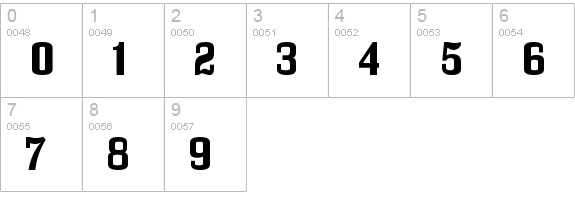
Vigo Font Details
Vigo font is a modern and sleek typeface that combines elegance with a touch of sophistication. Its clean lines and smooth curves make it perfect for a wide range of design projects, from branding to editorial layouts. Vigo font exudes a sense of style and professionalism that is sure to elevate any design it is used in. The best part about Vigo font is that it is available for free download at FontsMarket.com. This means that you can easily access this stunning typeface and incorporate it into your projects without any cost. Whether you are a seasoned designer looking to refresh your font collection or a beginner just starting out, Vigo font is a fantastic addition to any toolkit. Download Vigo font today and take your designs to the next level with its timeless appeal and versatility.